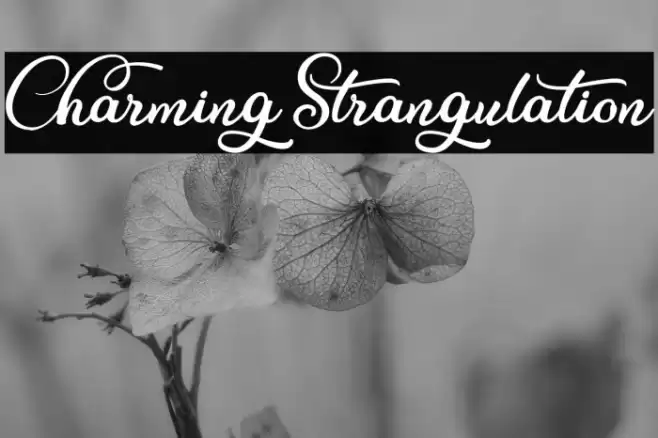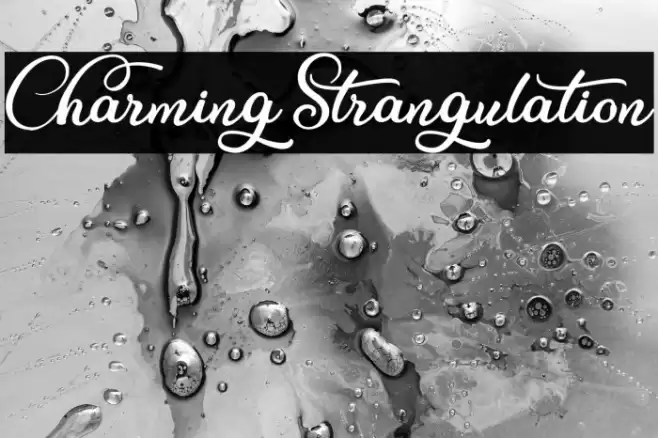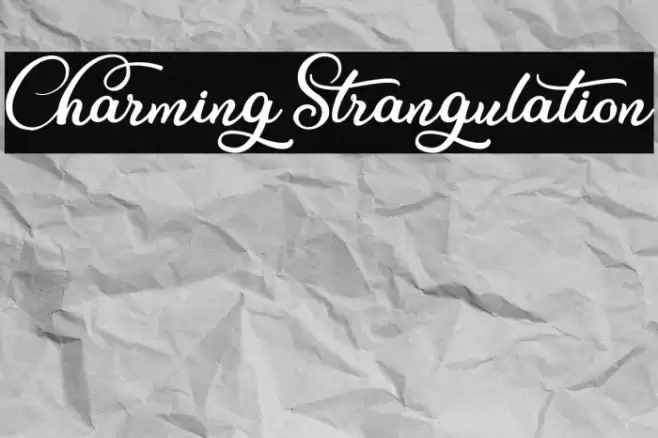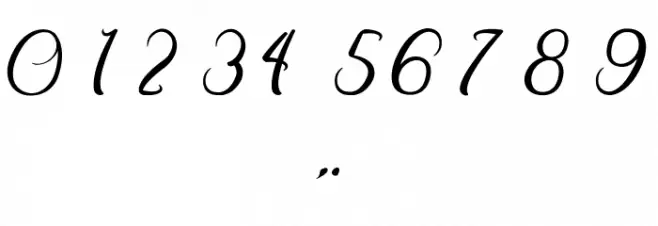
CharmingStrangulation Font
CharmingStrangulation Description
This elegant script font features a flowing, cursive style with intricate loops and swirls. The uppercase letters are ornate, with elaborate flourishes that give a sense of sophistication and grace. The lowercase letters maintain a consistent flow, connecting smoothly, which enhances readability despite the decorative nature. The numerals are equally stylish, with a slight slant that complements the overall cursive theme. The special characters are designed to match the font's aesthetic, ensuring a cohesive look across all text elements. This font exudes a sense of luxury and refinement, making it ideal for formal invitations, branding, and high-end product packaging.
An elegant script font with flowing, intricate loops and swirls, exuding sophistication from Uncategorized fonts.
- Proposed Projects: Ideal for wedding invitations, luxury branding, elegant product packaging, and formal event materials.
- Overall Style: Elegant, Sophisticated
- Use Case: Logos, Invitations, Branding